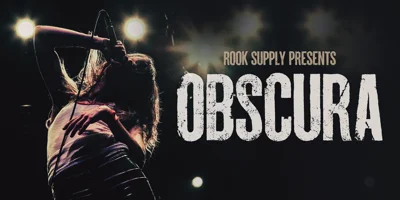
Obscura Font
Obscura Font is perfect for horror movie posters, gothic branding projects, dark themed websites, mysterious book covers, underground music album artwork, Halloween designs, occult-themed graphics, and atmospheric editorial layouts.
What makes Obscura Font exciting is its haunting character design that creates an immediate sense of mystery and intrigue. The carefully crafted letterforms feature dark, atmospheric qualities that evoke feelings of suspense and otherworldly elegance.
Obscura Font family includes regular, bold, thin, outline, and grunge variations, plus special decorative glyphs and mystical symbols that enhance the dark aesthetic experience.
Embrace the mysterious allure of Obscura Font for your most captivating design projects. This striking typeface masterfully balances readability with atmospheric drama, making it ideal for projects that demand attention and evoke emotion. The meticulously designed characters feature unique details that create visual impact while maintaining professional quality standards. Designers worldwide appreciate how this font transforms ordinary text into compelling visual narratives that engage audiences on a deeper level. Its versatility across both digital and print applications ensures consistent performance whether you're creating large-scale displays or intimate text settings. Experience the perfect fusion of darkness and sophistication that elevates your creative work beyond conventional typography boundaries with this exceptional design tool.